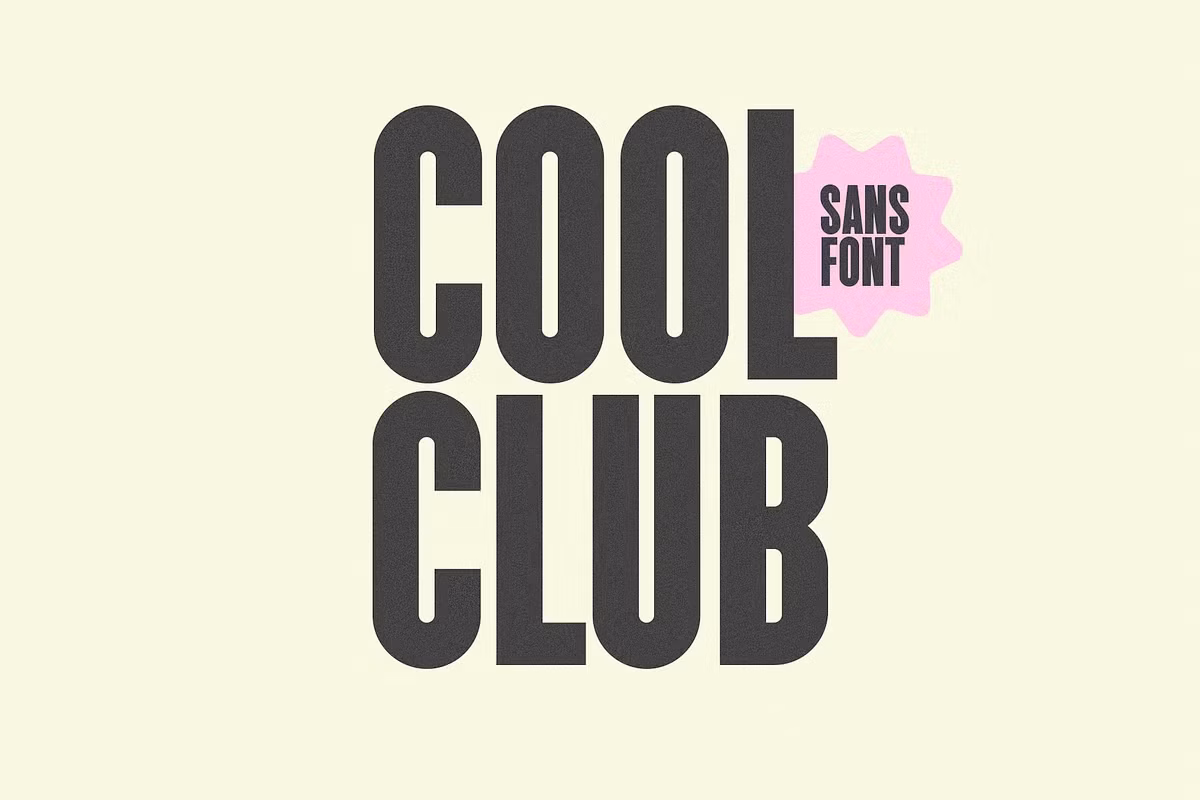
Cool Club | Tall Sans Font Free Download
Cool Club | Tall Sans Font Free Download is a sleek and modern typeface designed to make a bold statement in your designs. Featuring tall, geometric letterforms and a clean, minimalist style, this font is perfect for creating logos, branding materials, posters, social media content, and websites. Its sharp, structured design ensures that your message stands out while maintaining clarity and professionalism. Whether you're designing for a contemporary brand, a creative campaign, or a stylish event, Cool Club | Tall Sans Font Free Download allows you to experiment with its unique design in personal projects before purchasing a commercial license. Add modern sophistication and impact to your designs with this beautifully crafted tall sans font.